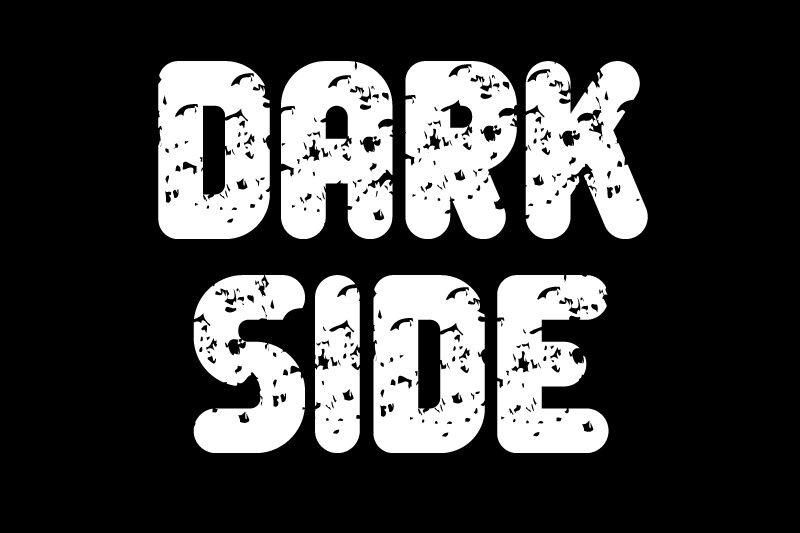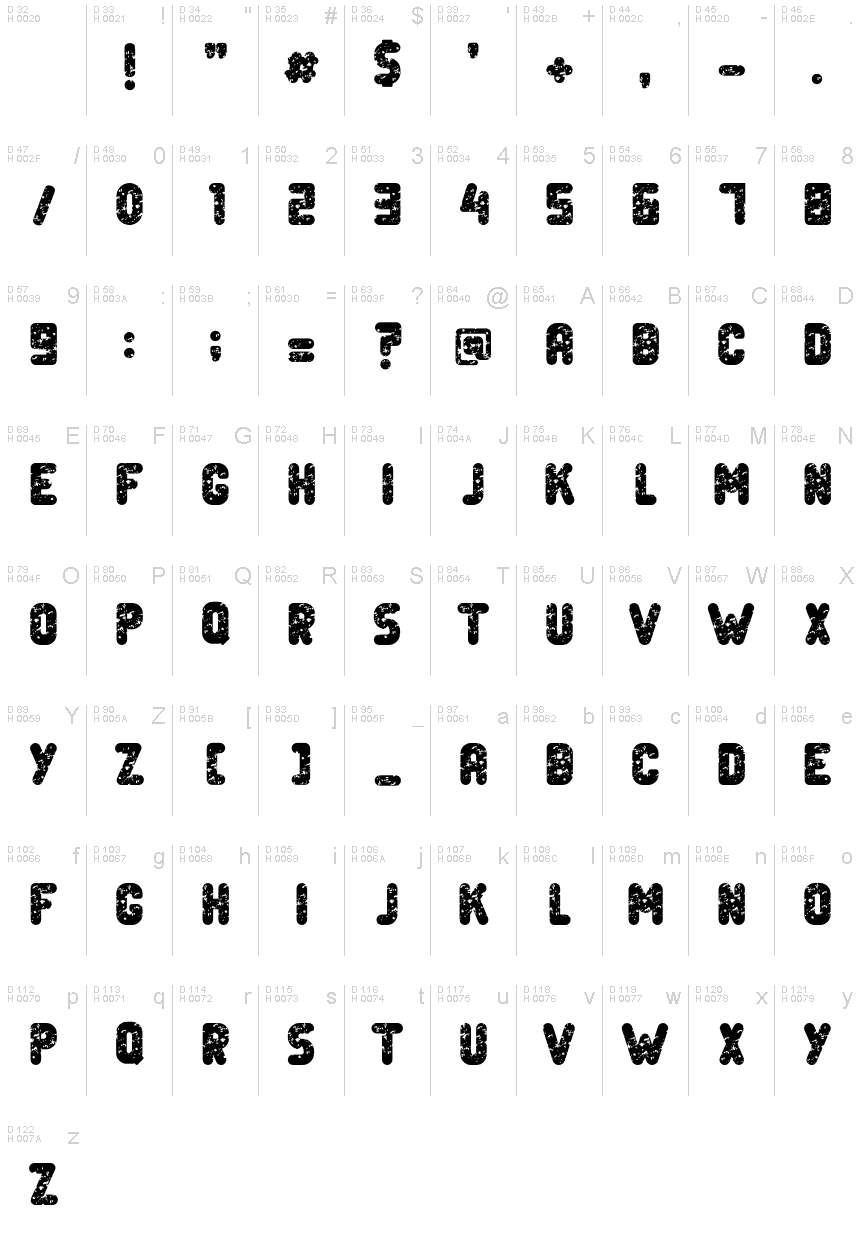
Dark Side Bold
Dark Side Bold is a captivating display font from the renowned Dark Side font family, designed by Design Vector10. With its eroded style and bold weight, this font exudes a sense of edgy sophistication, making it perfect for projects that require a touch of rebellion.
Whether you're designing album covers, movie posters, or tattoo art, Dark Side Bold adds an element of ruggedness and intensity. Its semi-condensed width further enhances its versatility, allowing it to adapt seamlessly to various creative endeavors.
Embrace the dark side and let your imagination run wild with Dark Side Bold.